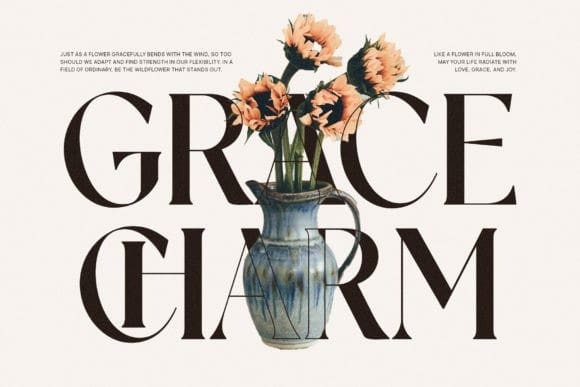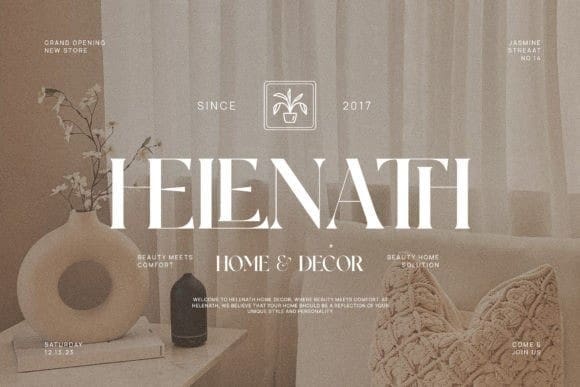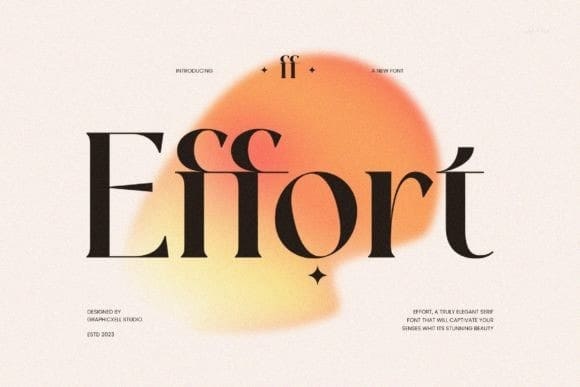
Effort Font
Effort Font, elegant serif typeface combined with a classy and modern style. This type of font is very suitable for your various needs such as branding projects, logos, wedding designs, social media posts, advertisements, product packaging, product designs, labels, photography, watermarks, invitations, stationery, and any project, created with high level of readability.